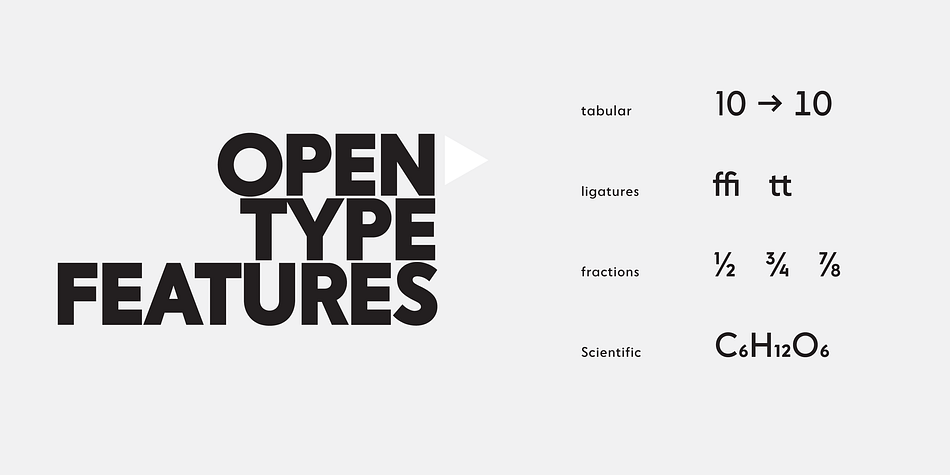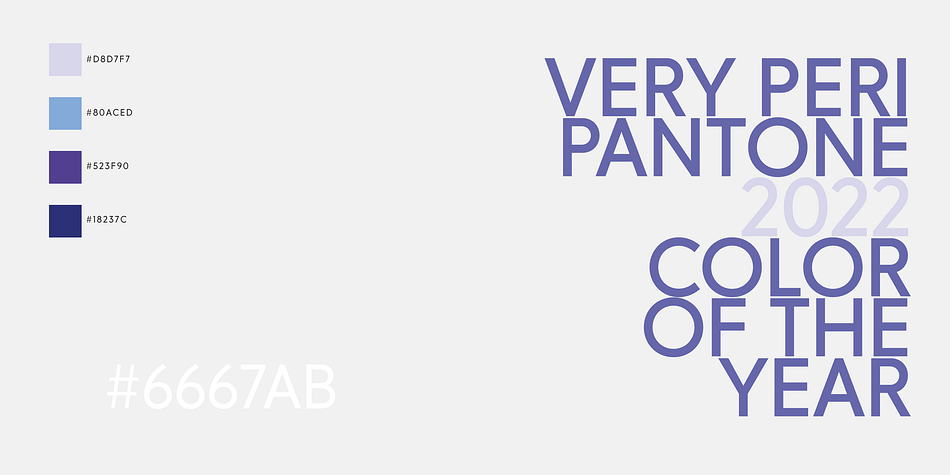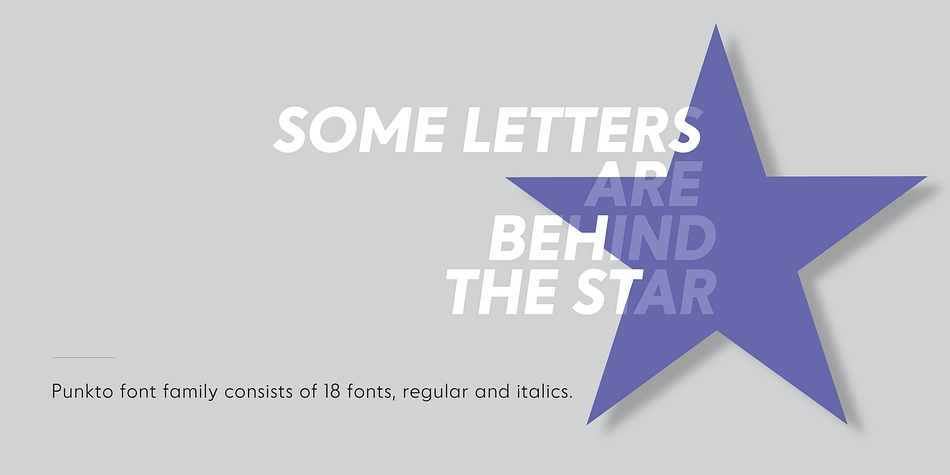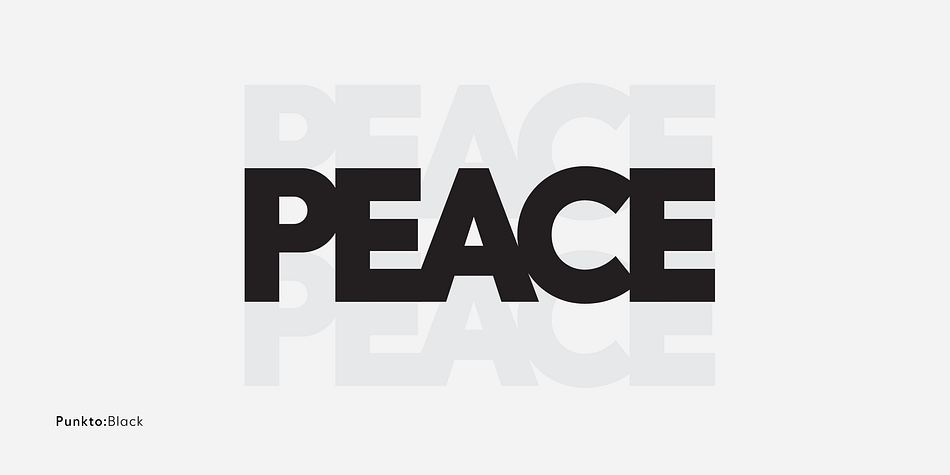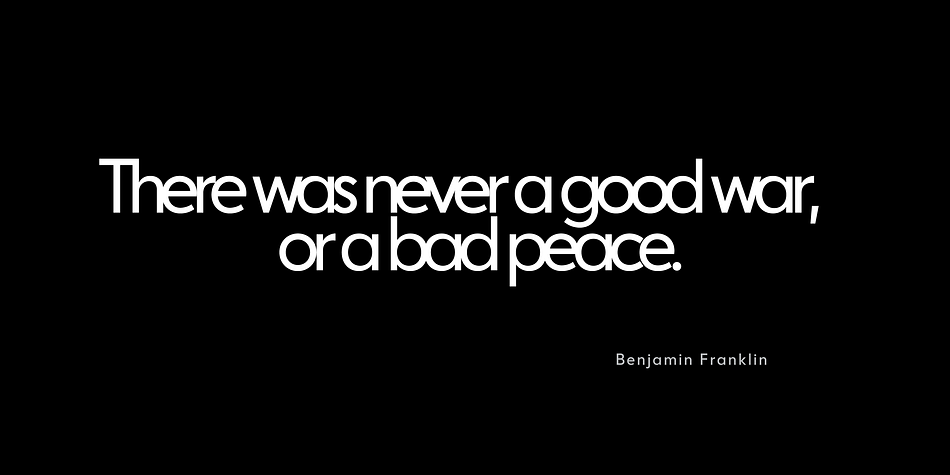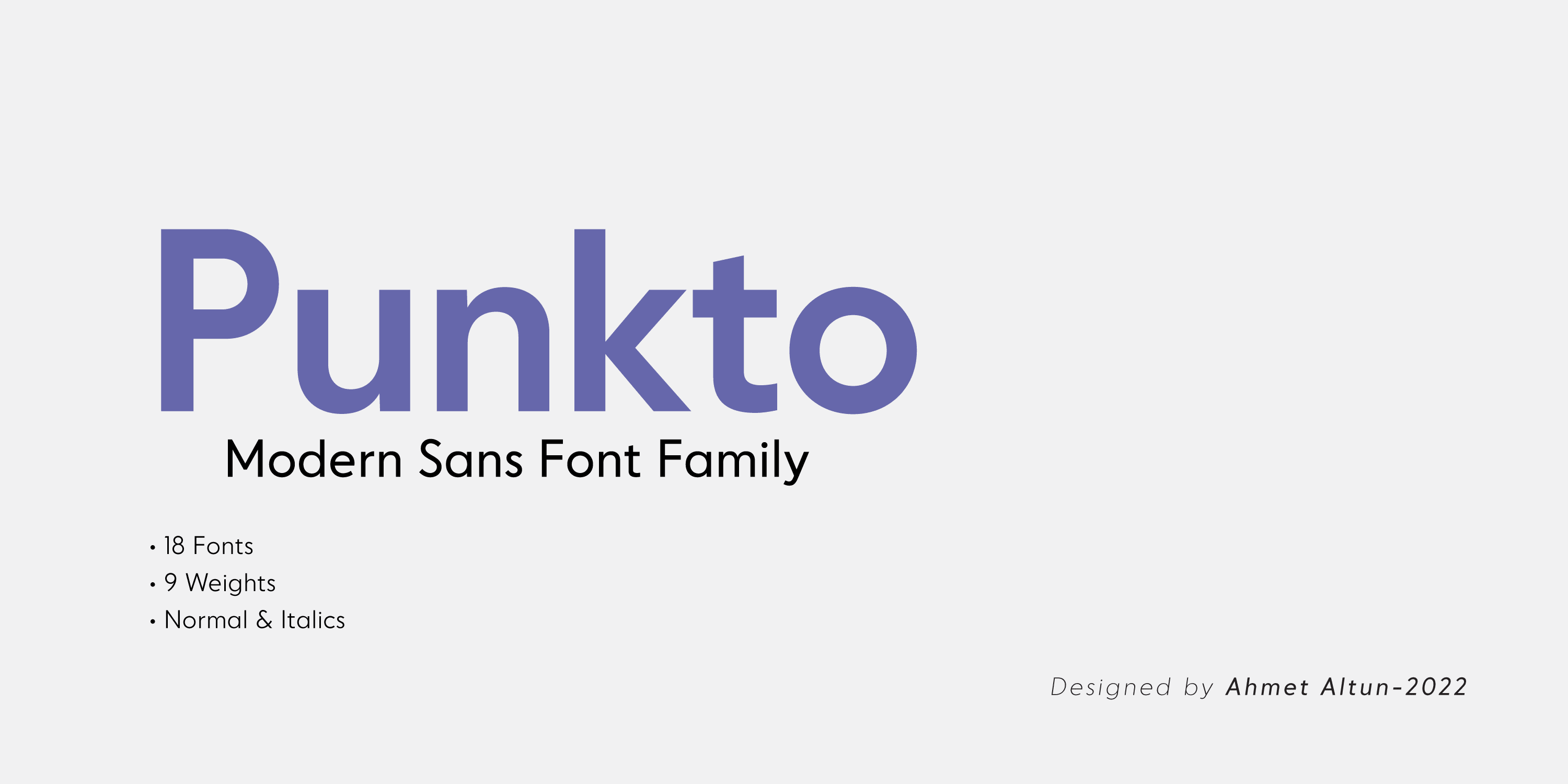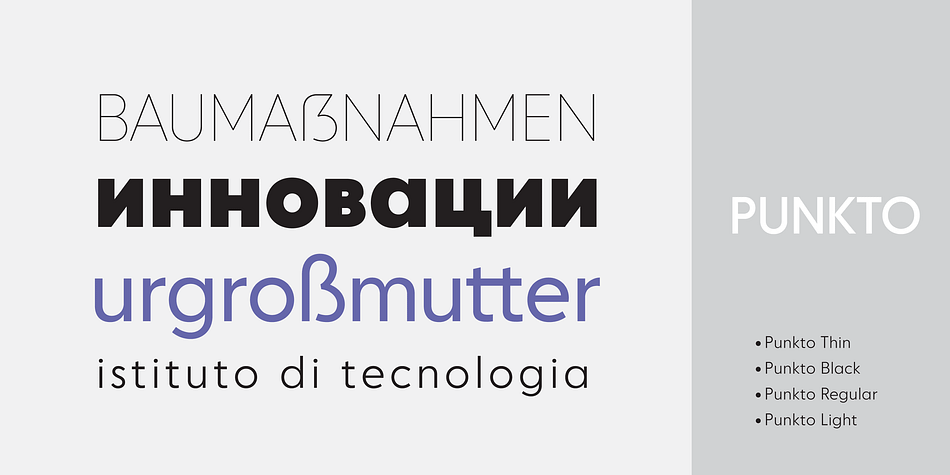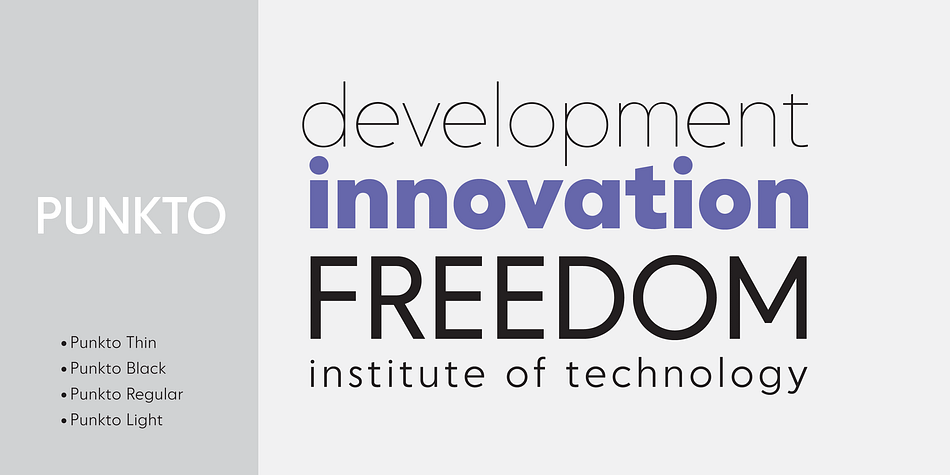
Designed by Ahmet Altun, Punkto is a sans serif font family. This typeface has eighteen styles and was published by Ahmet Altun.
The Punkto font family comes in nine weights of Normal and Italic. With the Punkto font family, you can create beautiful works for the web, including logos, banners, body copy, and presentations. Punkto typeface also works nicely in print formats such as posters, T-shirts, magazines, and affiches. Because of its eye-pleasing style, this font is both effective and versatile. It supports a wide range of languages, including Extended Latin and Cyrillic.